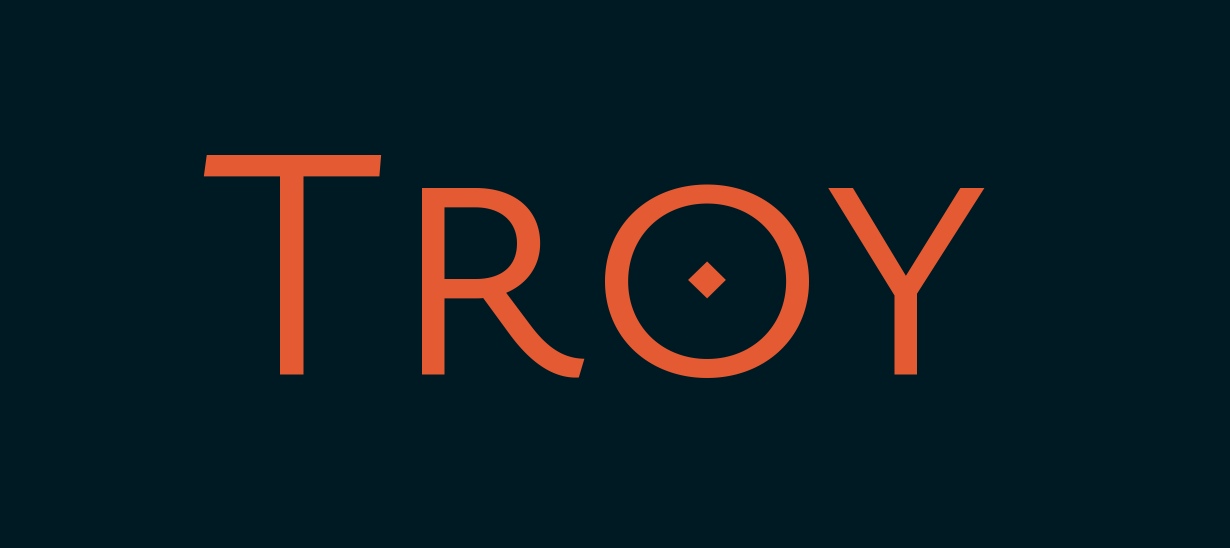
Troy Sans Font
Troy Sans Font is perfect for ancient history museums, classical archaeology presentations, historical research materials, epic entertainment campaigns, legendary brand identities, heroic sports marketing, timeless cultural institutions, and mythological storytelling projects.
What makes Troy Sans Font exciting is its legendarily heroic character that captures the epic grandeur and timeless courage of ancient civilizations through boldly crafted letterforms that seem forged in the fires of legendary battles and heroic achievements. The font features strong geometric structures with classical details that evoke the monumental architecture and enduring legacy of history's greatest civilizations. Its epic aesthetic and legendary authenticity make it perfect for organizations that want to communicate heroic values, timeless strength, and the kind of enduring legacy that inspires generations while creating memorable experiences that connect audiences with the epic stories and heroic ideals that define human greatness.
Troy Sans Font family includes various heroic weights such as Light, Regular, Medium, and Bold variations, often featuring classical alternates and legendary decorative elements. The family may include ancient symbols, heroic ornaments, and epic ligatures that enhance the font's legendary aesthetic, providing designers with comprehensive options for creating powerful typographic compositions that honor ancient civilizations and heroic traditions.
This legendarily epic typeface has gained recognition among cultural institutions and heroic brands seeking authentic classical typography solutions that reflect legendary values and epic storytelling. Troy Sans Font Free Download provides an excellent opportunity to conquer with this heroic font before investment. The font's character set includes ancient symbols and legendary-inspired glyphs that work perfectly for cultural and entertainment industry applications. Whether you're designing for history museums, epic entertainment productions, or legendary lifestyle brands, Troy Sans Font delivers the heroic strength your project requires. Its versatile nature makes it suitable for various epic applications including archaeological societies, epic gaming companies, historical documentaries, and legendary sports brands, ensuring your typography choices communicate timeless heroism and epic grandeur while creating memorable brand experiences that celebrate the enduring power of legendary stories and the inspiring courage of history's greatest heroes through its distinctively heroic and authentically legendary visual character.